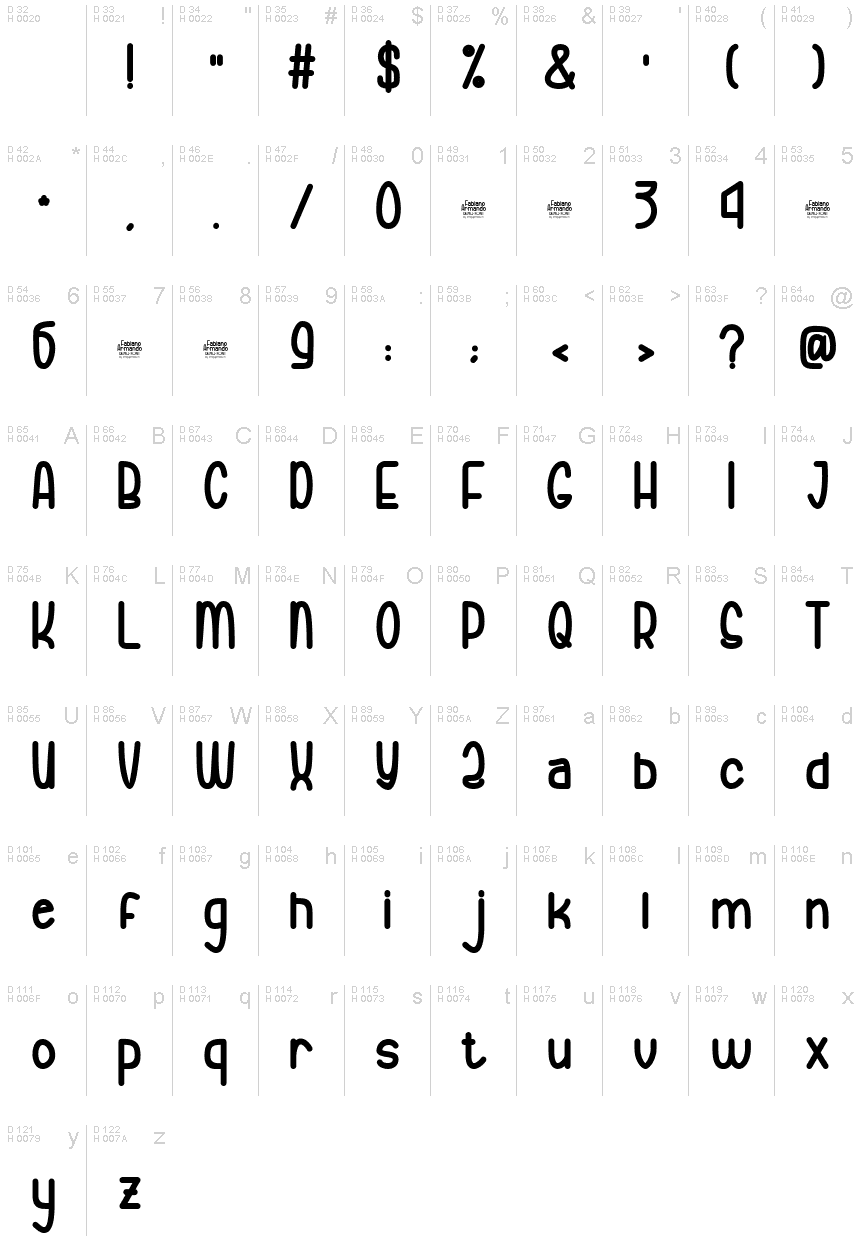
Fabiano Armando Extra Bold
Fabiano Armando Extra Bold is a distinctive typeface that brings the warmth and spontaneity of handwritten script to the page with a bold, condensed flair. Created by bringtypestudio.co, this member of the Fabiano Armando font family stands out with its robust and commanding presence while retaining an organic touch that adds personality to any design.
The Extra Bold weight of this font provides a visual punch that is perfect for headlines, branding, and advertising where you want your message to make an instant impact. Its condensed width means it's incredibly efficient for space-saving designs without sacrificing readability or style.
Visually, Fabiano Armando Extra Bold marries approachability with assertiveness; its flowing letters suggest elegance and flexibility. The handwritten style exudes a casual sophistication that can soften the starkness often associated with bold typography, making it versatile for both digital screens and print mediums.
Whether incorporated into creative projects like posters or used in more personal contexts such as invitations or greeting cards, this font's unique blend of style and practicality is sure to capture attention and elevate your work with its distinct character.